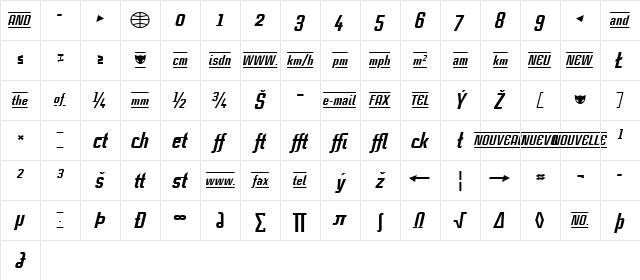
CaseStudyNoOne LT Heavy Italic
Foundry: Linotype Library GmbH or its affiliated companies
Design Context for CaseStudyNoOne LT
CaseStudyNoOne LT is a composed and adaptable typeface that performs quietly and consistently across a wide range of design contexts. The slanted form adds forward momentum and visual energy. Its slender proportions lend an understated elegance to any composition.
Pro Tip: Use CaseStudyNoOne LT for emphasis, pull quotes, and subheadings where its slanted energy can add rhythm to the layout.
Who designed the CaseStudyNoOne LT Heavy Italic font?